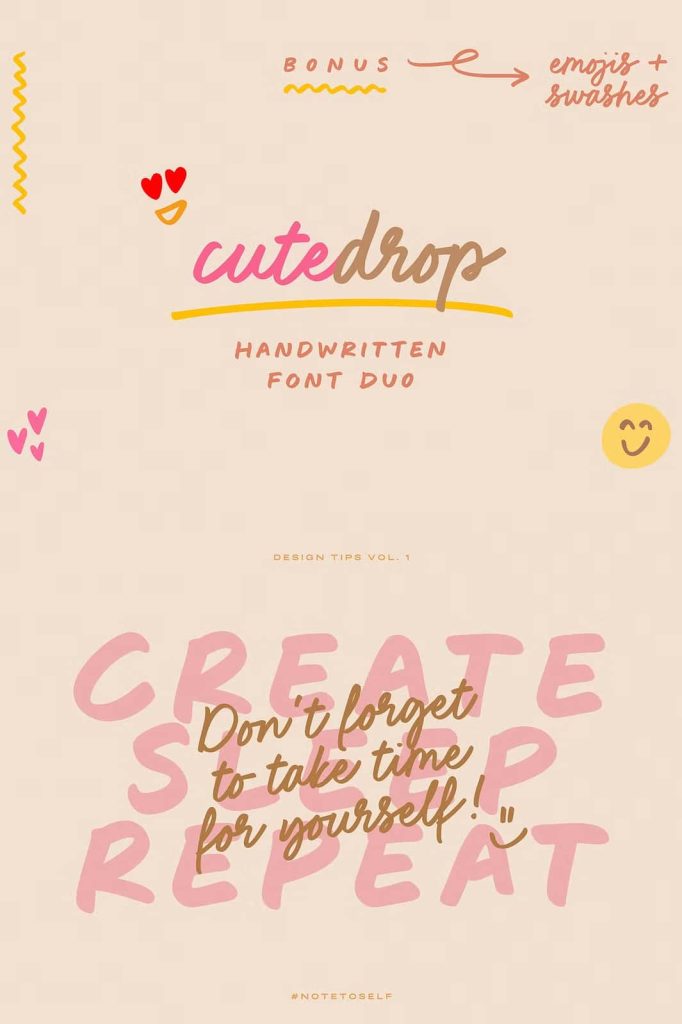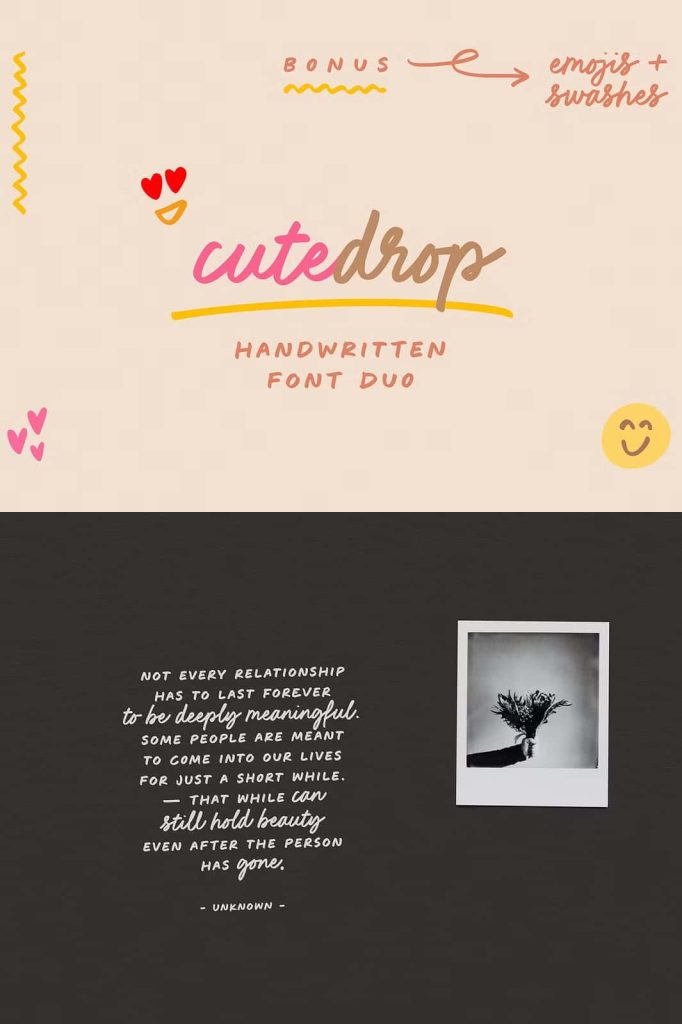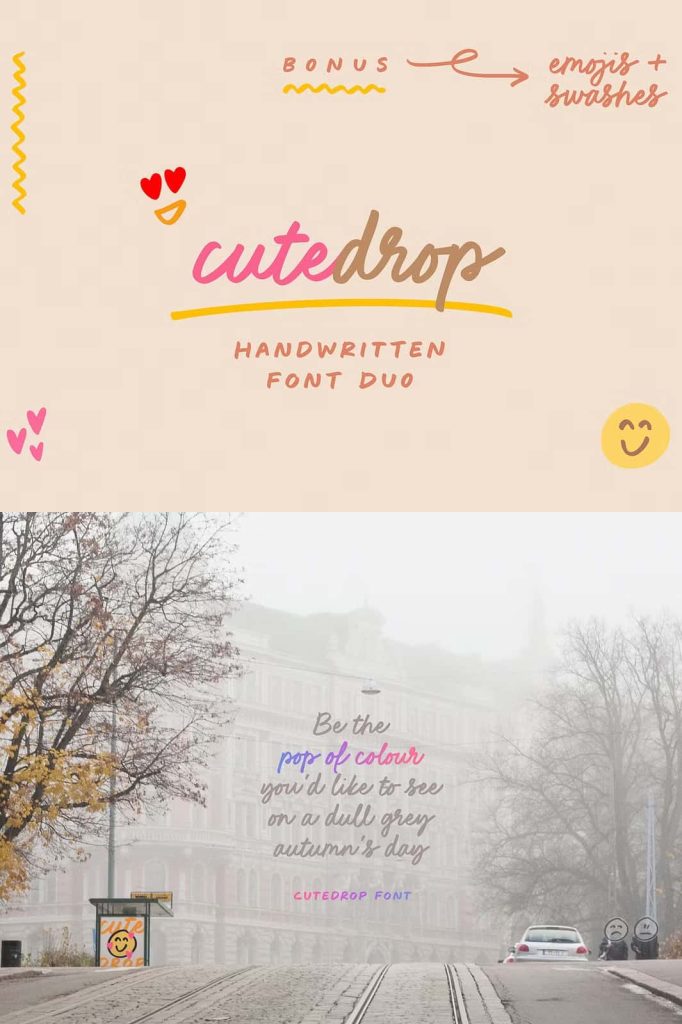
CuteDrop Handwritten Font Duo for Playful and Creative Designs
CuteDrop is a delightful handwritten font duo that combines a beautiful script font with a matching all-caps font, giving designers a versatile typography solution for a wide variety of creative projects. Designed with authenticity and consistency in mind, both fonts were carefully handwritten using the same marker pen, creating a cohesive visual style that feels natural, friendly, and approachable.
Whether you are working on branding, social media graphics, product packaging, invitations, logos, or personal projects, CuteDrop provides the flexibility needed to create engaging designs with a genuine handcrafted appearance. The combination of a flowing script and a bold all-caps companion font allows designers to build eye-catching typography compositions without needing multiple unrelated typefaces.
What Makes CuteDrop Font Duo Special?
Many font duos combine typefaces that feel disconnected or inconsistent. CuteDrop takes a different approach by ensuring both fonts share the same handwritten foundation. Because they were created using the same marker pen, they naturally complement each other while maintaining a unified personality.
This thoughtful design process makes it easy to pair the fonts together in a single project. Designers can confidently use the script font for elegant accents while relying on the all-caps font for strong headlines and supporting text. The result is a balanced and professional design that still feels playful and personal.
Authentic Handwritten Character
CuteDrop captures the charm and warmth of genuine handwriting. Each letter contains subtle variations that give the font a natural appearance, helping designs feel more personal and less mechanical. This authentic quality makes the font duo ideal for projects that require a human touch and a welcoming visual style.
Unlike generic digital fonts, CuteDrop delivers character and personality that instantly connect with audiences. Its handcrafted details help create a friendly atmosphere while maintaining excellent readability.
Matching Script and All Caps Fonts
The strength of CuteDrop lies in its versatility. The script font offers smooth, flowing strokes that bring elegance and creativity to headlines, quotes, and decorative text. Meanwhile, the all-caps font provides structure and clarity, making it perfect for titles, labels, and supporting information.
Together, these fonts create endless design possibilities. You can use them side by side for contrast, separately for a clean and focused look, or combine them creatively to build unique typography layouts.
Perfect for Branding Projects
A strong brand identity requires typography that communicates personality and consistency. CuteDrop helps businesses create memorable branding materials that feel approachable and authentic. The handwritten style adds warmth and individuality, making brands appear more relatable and engaging.
The font duo works especially well for small businesses, creative studios, handmade products, boutiques, lifestyle brands, and personal brands that want to establish a friendly and inviting image.
Create Distinctive Logos
CuteDrop’s unique handwritten character makes it an excellent choice for logo design. The script font can create elegant signatures and custom-style wordmarks, while the all-caps font provides bold supporting elements. Together, they help designers build logos that stand out while maintaining a cohesive visual identity.
Ideal for Social Media Graphics
Social media platforms reward content that captures attention quickly. CuteDrop helps creators design attractive graphics that feel personal and authentic. Its playful appearance makes posts more engaging while encouraging stronger connections with audiences.
Use the script font for inspirational quotes, product promotions, announcements, and featured messages. Pair it with the all-caps font to establish hierarchy and improve readability across different content formats.
Boost Visual Engagement
Handwritten typography often feels more relatable than traditional fonts. CuteDrop helps brands and content creators create graphics that appear more human, increasing audience engagement and enhancing overall visual appeal.
Excellent for Invitations and Stationery
CuteDrop brings charm and personality to invitations, greeting cards, event materials, and stationery designs. The script font adds elegance and warmth, while the all-caps font provides structure for important details and supporting text.
Whether you are designing wedding invitations, birthday cards, baby shower announcements, thank-you notes, or personalized stationery, CuteDrop helps create memorable pieces that leave a lasting impression.
Enhance Product Packaging
Packaging design plays a critical role in attracting customers and communicating brand values. CuteDrop helps products stand out through typography that feels handcrafted and genuine. Its authentic appearance works particularly well for handmade goods, artisan products, food packaging, cosmetics, candles, and boutique retail items.
From branding and logos to social media graphics, invitations, packaging, and creative marketing materials, CuteDrop helps transform ordinary text into memorable visual experiences. Its friendly personality, natural handwritten appearance, and flexible design options make it an excellent choice for anyone seeking typography that feels both professional and genuinely handcrafted.